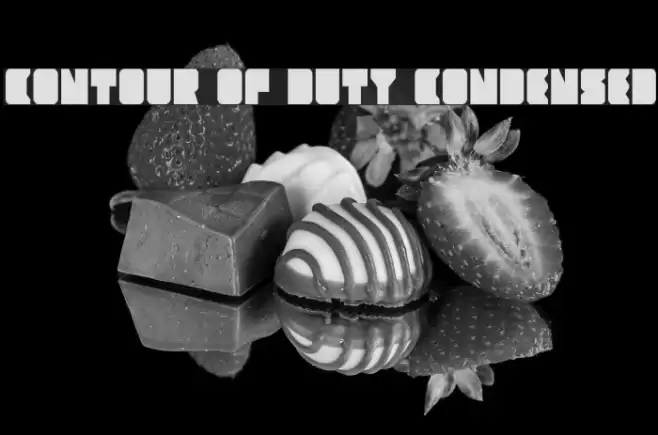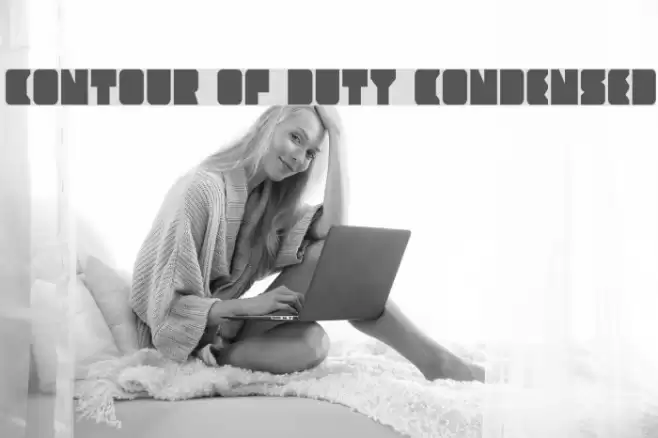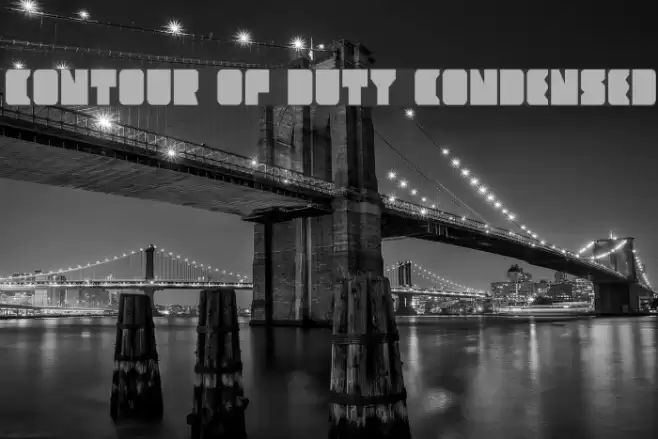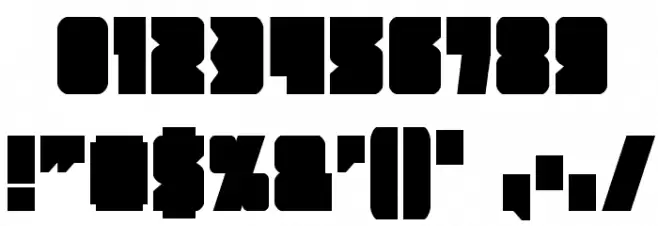
Contour of Duty Condensed Font
Contour of Duty Condensed Description
This font features a bold, geometric design with a distinctly modern and industrial feel. The characters are constructed with solid, block-like shapes that create a sense of strength and stability. Each letter is crafted with sharp angles and straight lines, giving the font a futuristic and edgy appearance. The uppercase and lowercase letters maintain a consistent style, while the numbers and special characters integrate seamlessly into the overall design. The condensed width of the characters allows for efficient use of space, making it ideal for impactful headlines and titles. The font's unique style is perfect for projects that require a bold statement, such as branding, posters, and digital media.
A bold, geometric font with a modern, industrial style from Fancy fonts.
- Proposed Projects: Ideal for branding, posters, digital media, and impactful headlines.